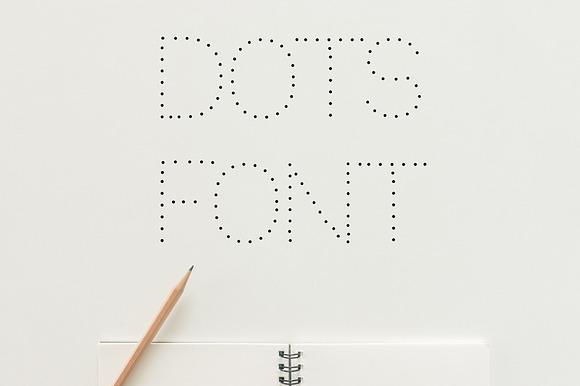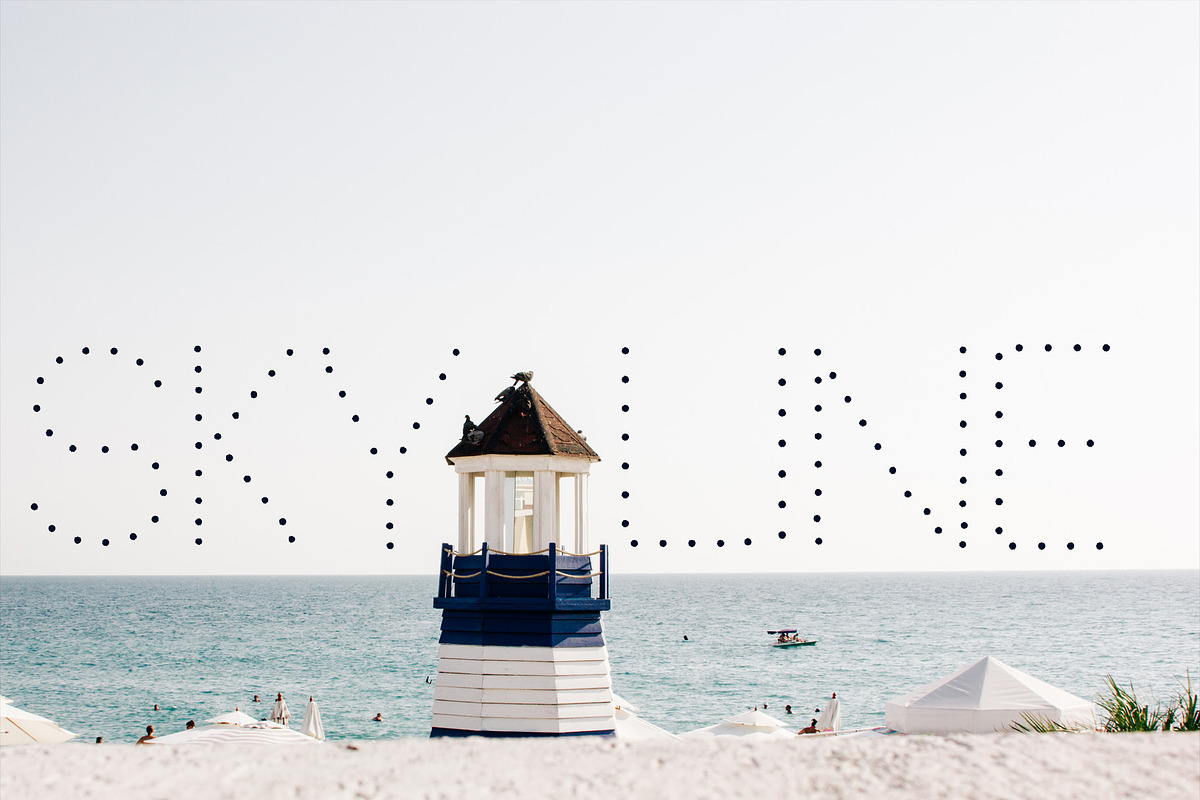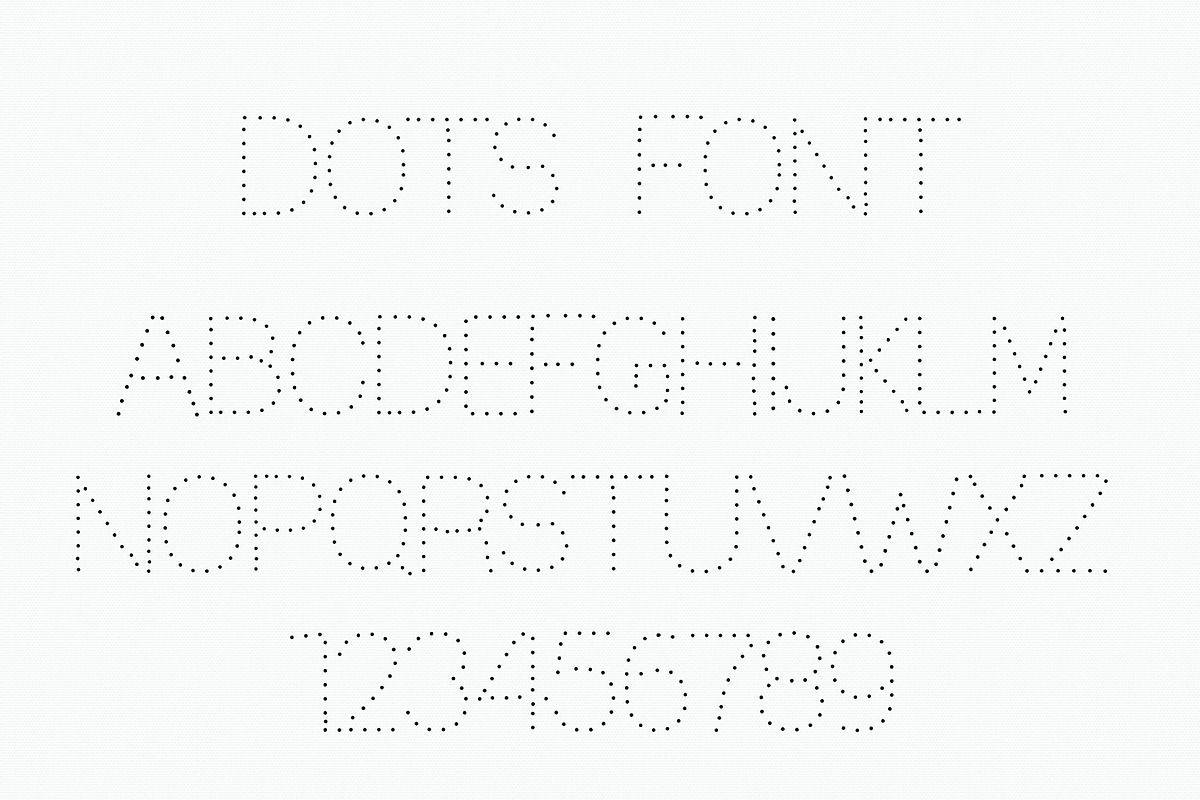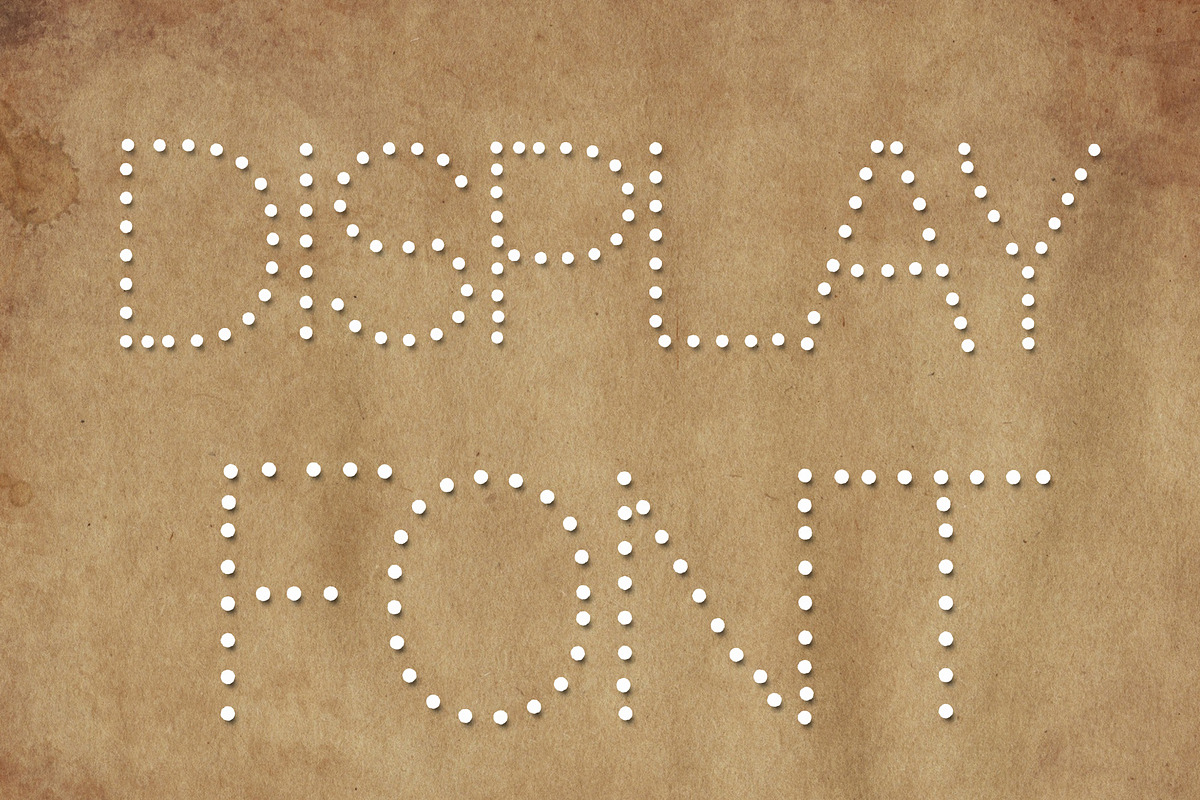
Dots Display Font
Dots Font is display typeface.
Great for posters, logos, packaging, invitations, website titles, T-Shirts and more.
Dots Display Font by vladocar fits naturally into Branding, posters, packaging, typography.